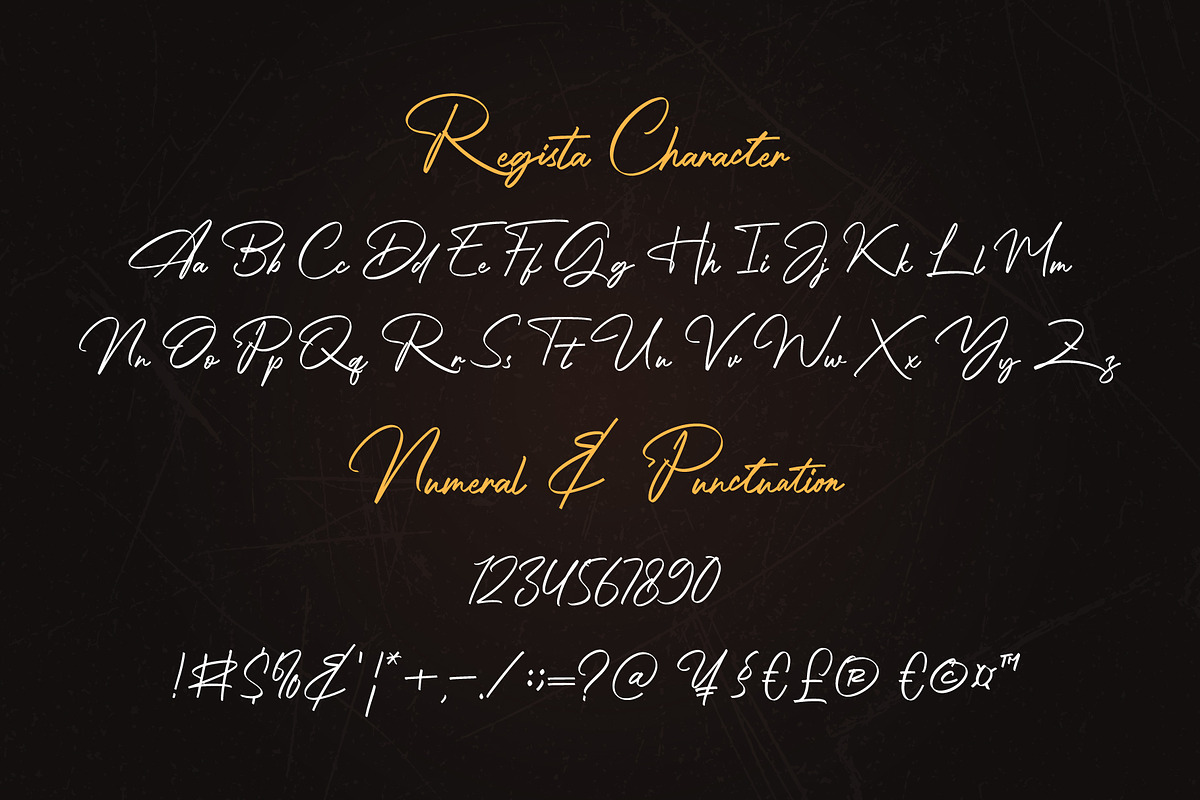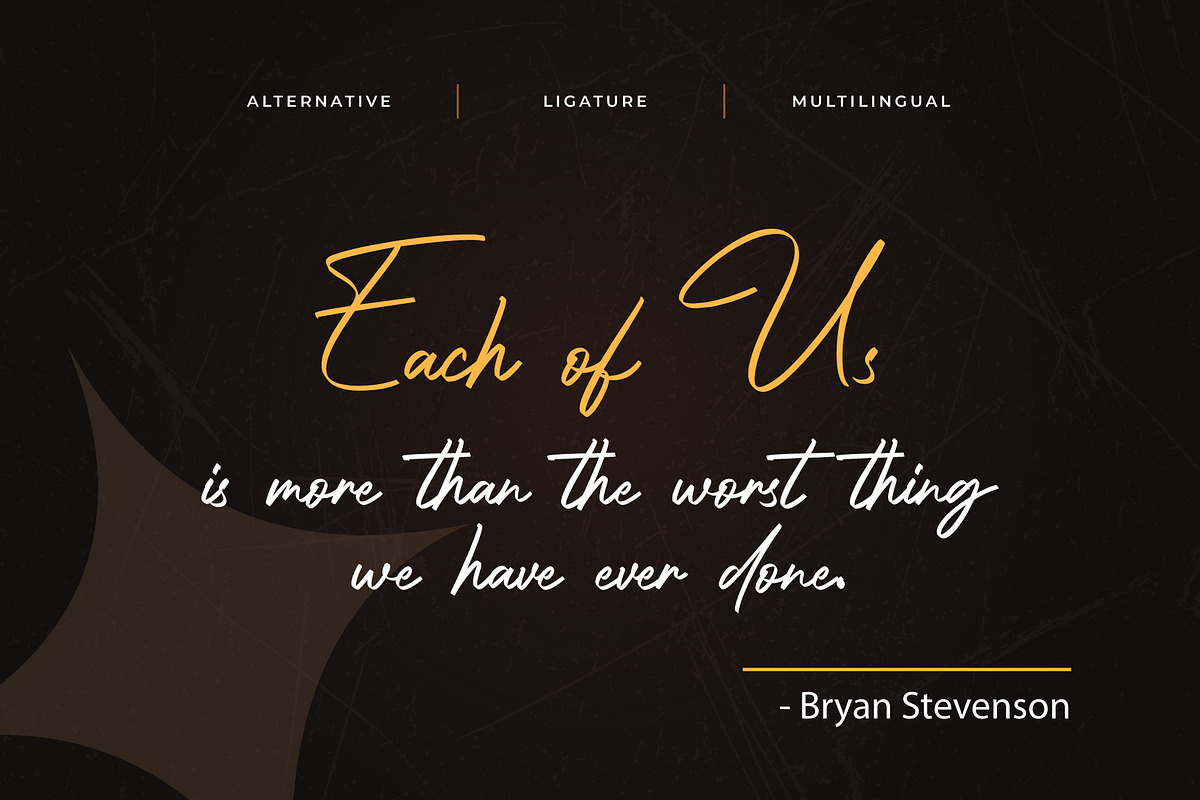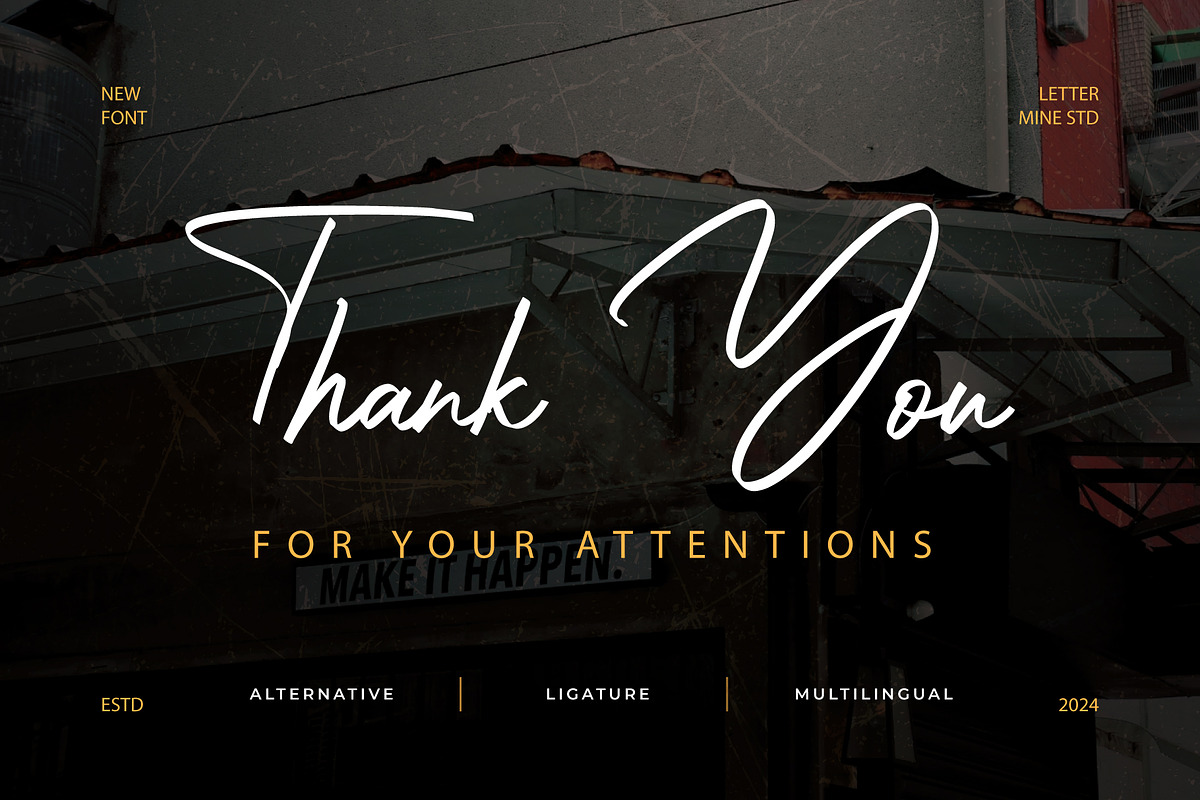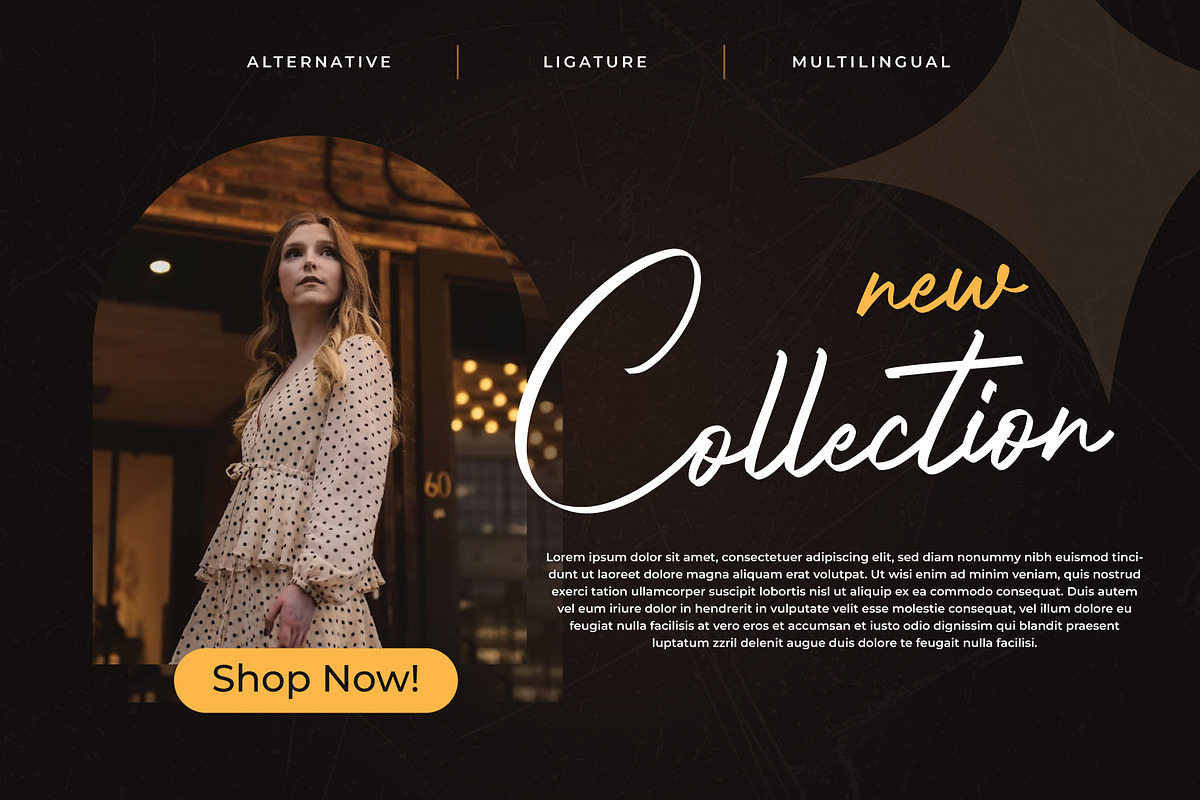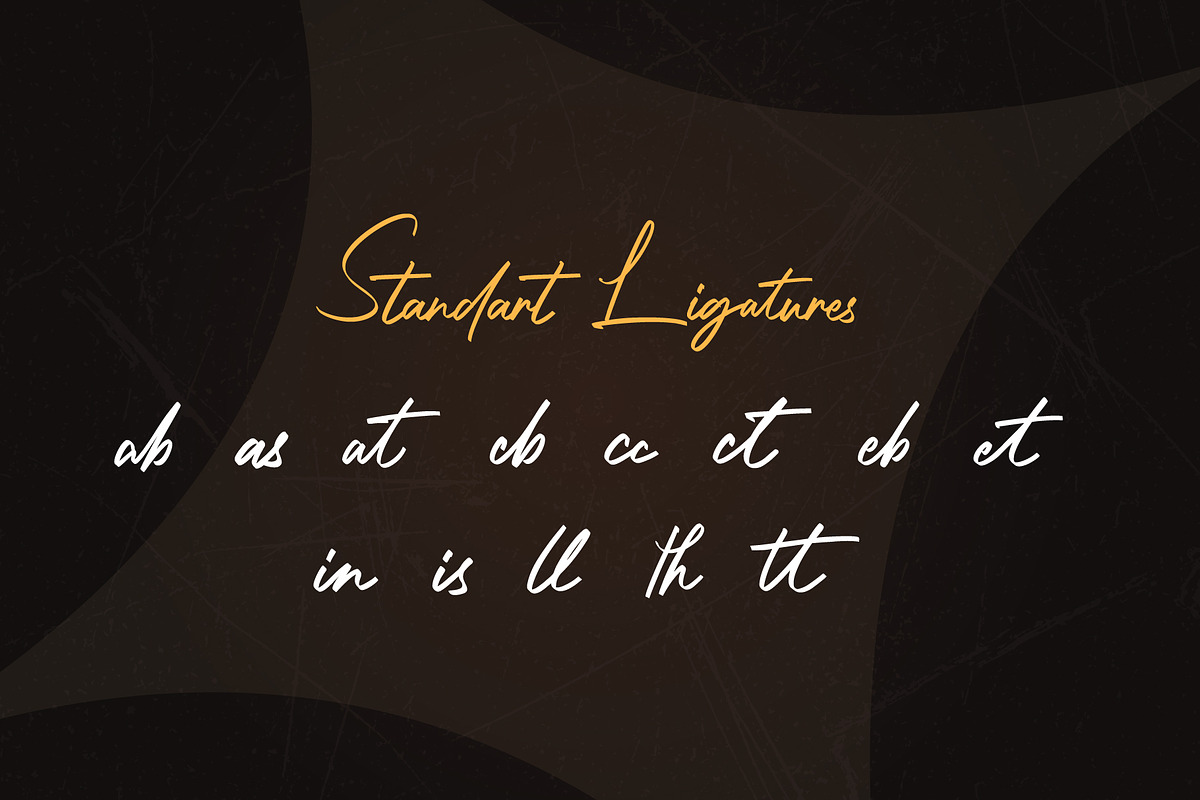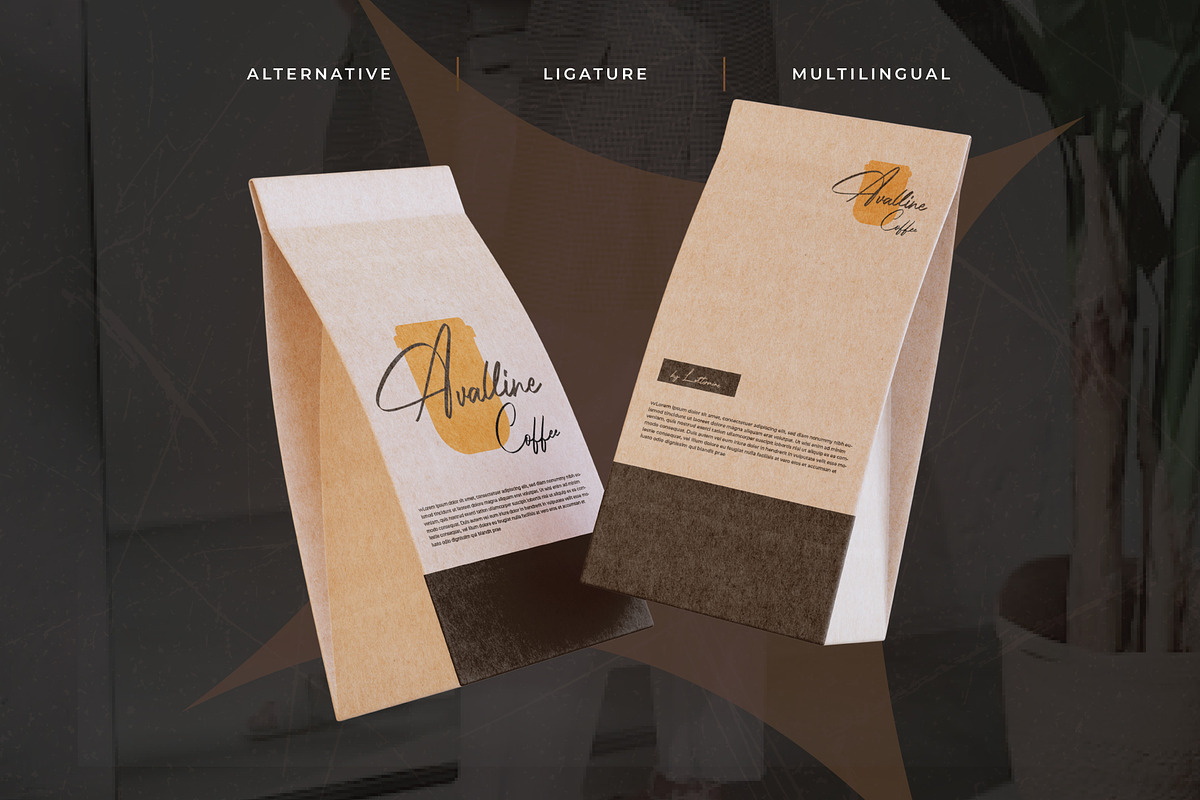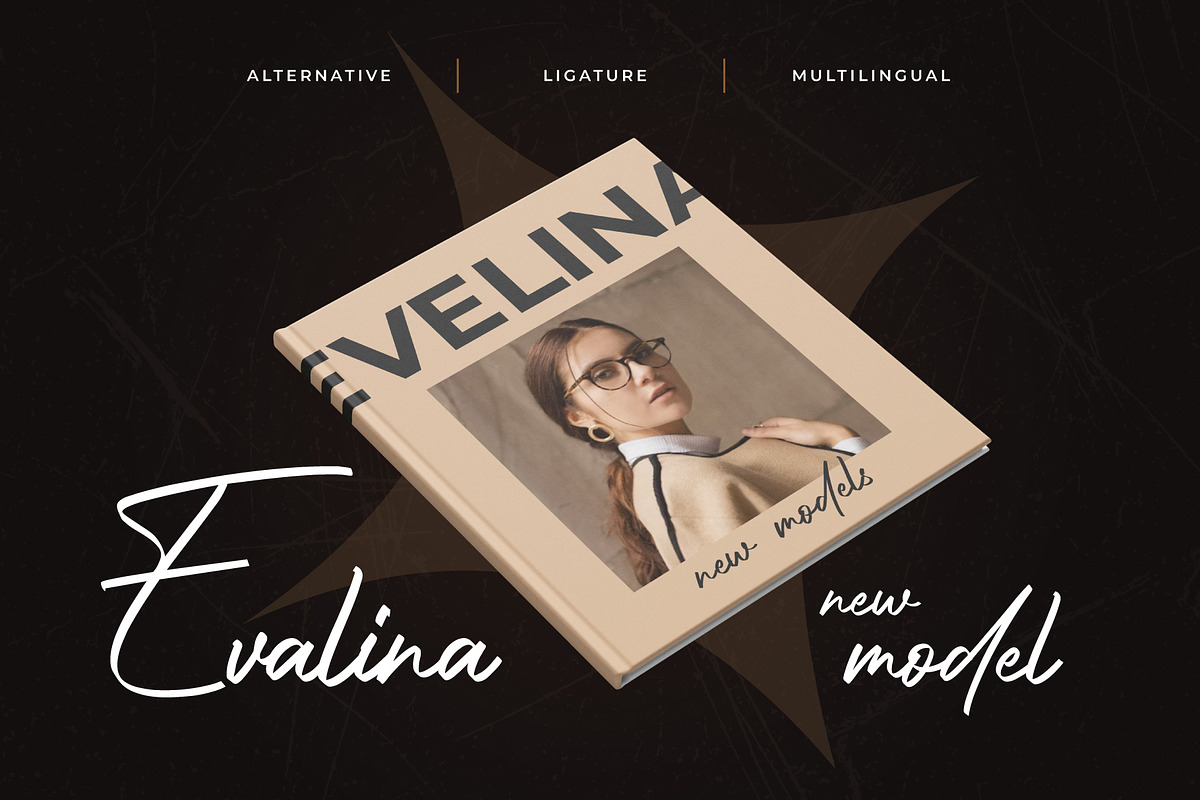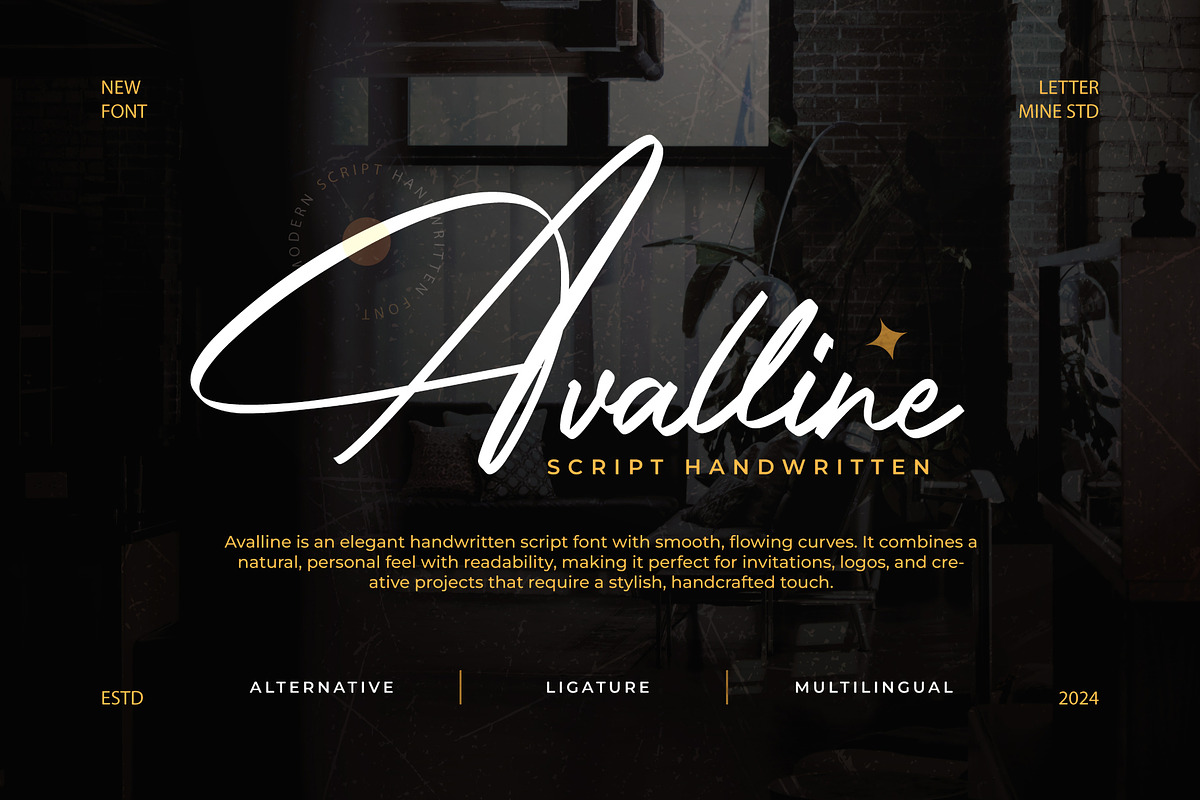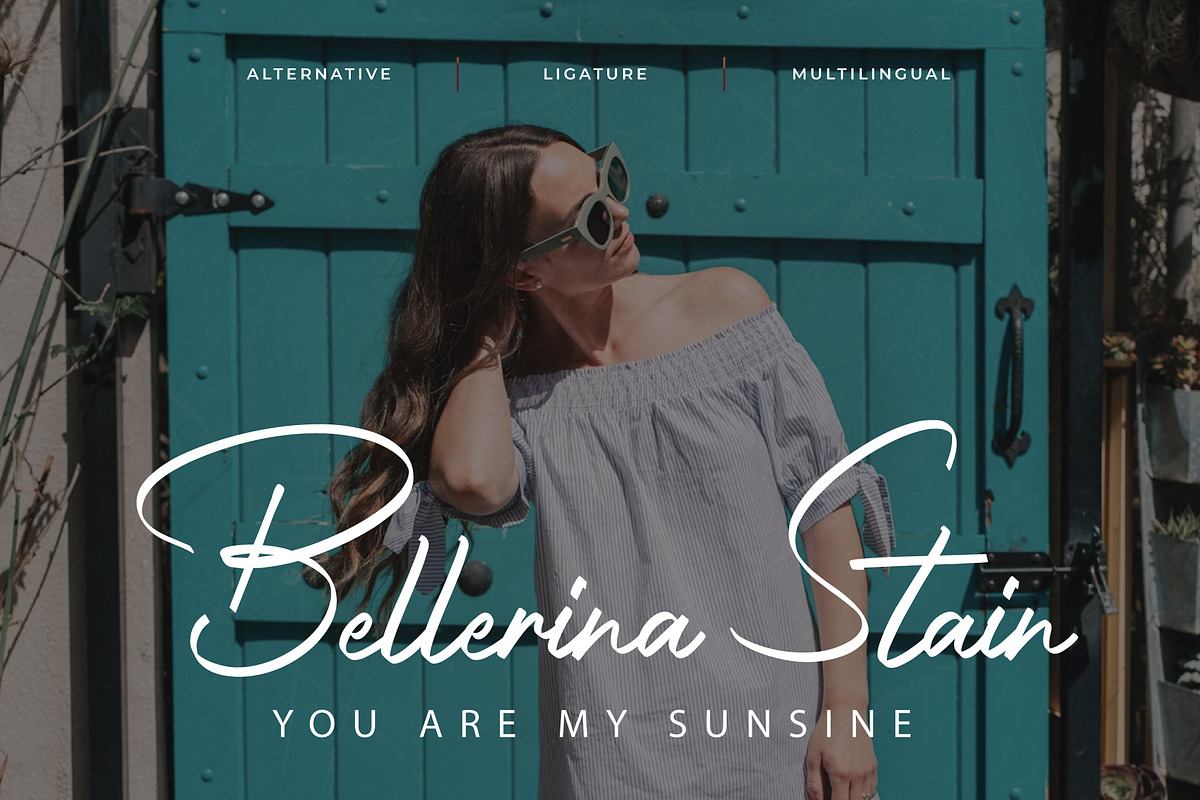
Avalline - Handwritten Script
Avalline – Script Handwritten
Avalline is a graceful script handwritten font that exudes elegance and charm. With its smooth, flowing strokes and authentic hand-drawn texture, this font brings a personal, warm touch to your designs. Whether for wedding invitations, logos, or social media graphics, Avalline’s timeless style will elevate your projects with sophistication and creativity.
- Alternatives
Let Avalline be your go-to font for projects that need a touch of handwritten sophistication. Infuse your designs with warmth, elegance, and personality using Avalline!